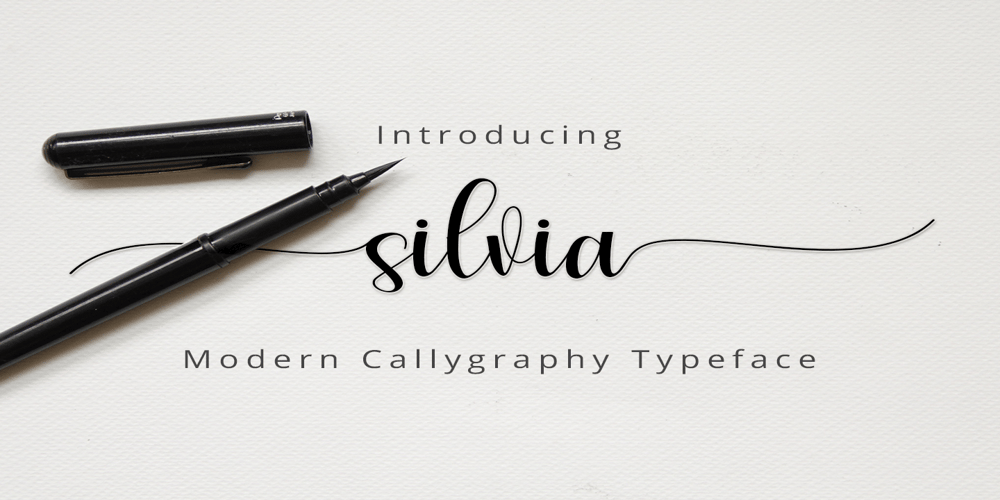
Silvia Script
Silvia Script font
Silvia Script Font Family was designed by Zulkhairi Saleh and published by Zulkhairilettering. Silvia Script contains 1 styles and family package options. Introducing: Silvia Script!A script font with a smooth handwritten style. Comes with 343 glyphs. Simple Script is perfect for branding projects, homeware designs, product packaging, use in name card, invitation cards, etc. Simply as a stylish text overlay to any background image or anything requiring a sprinkle of elegance.To enable the OpenType Stylistic alternates, you need a program that supports OpenType features such as Adobe Illustrator CS, Adobe Indesign & CorelDraw X6-X7, Microsoft Word 2010 or later versions.There are additional ways to access alternates/swashes, using Character Map (Windows), Nexus Font (Windows), Font Book (Mac) or a software program such as PopChar (for Windows and Mac).Thank you for checking! I really hope you enjoy it.